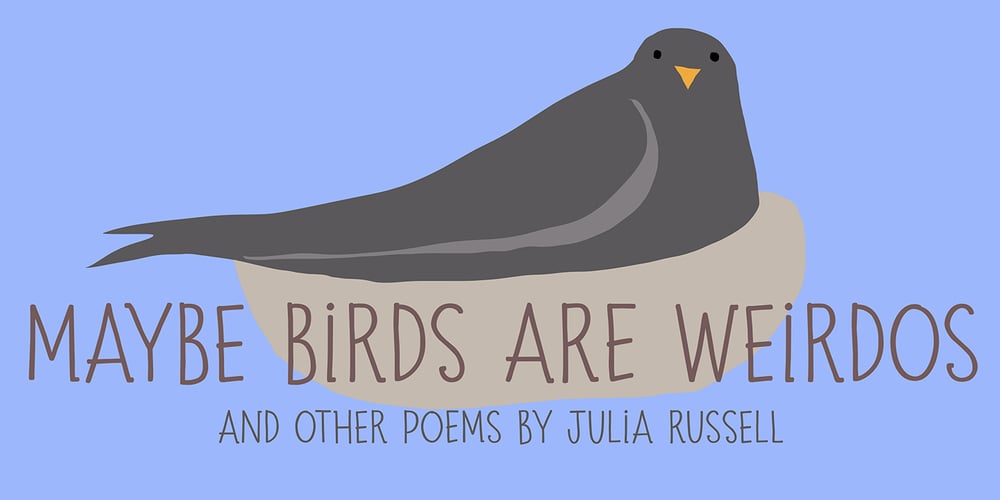
Suntea Font Family was designed by Amy Dietrich and published by Atlantic Fonts. Suntea contains 4 styles and family package options. Flavored with a cool set of discretionary ligatures, and infused with delicate sweetness, Suntea is quirky and refreshing! Suntea Caps keeps it bold with all-caps and alternates for each character. Hand drawn and delicious, let Suntea quench your thirst for a friendly font.